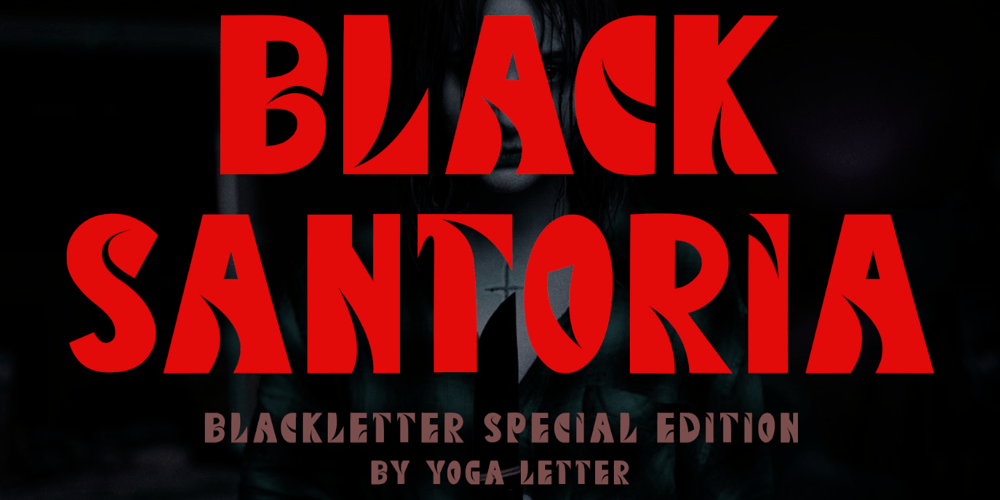
Black Santoria Font Family was designed by Isroni Yoga Prasetya and published by Yoga Letter. Black Santoria contains 1 styles and family package options. “Black Santoria” is a unique and elegant blackletter font. It comes with capital letters, lowercase letters, numbers, punctuation, and multilingual support. It is perfect for logos, banners, business branding, stickers, posters, prints, christmas, halloween, fall, holidays, travel, and more.